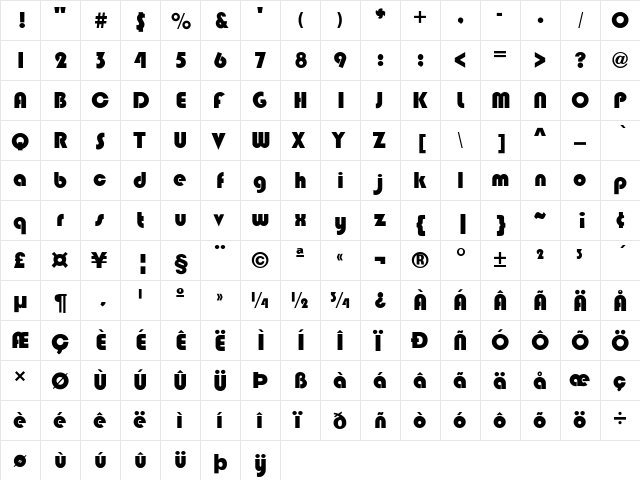
Bixlee-Heavy Regular
Bixlee-Heavy offers clean, dependable letterforms without strong stylistic allegiance, making it a practical choice for designers who need flexibility.